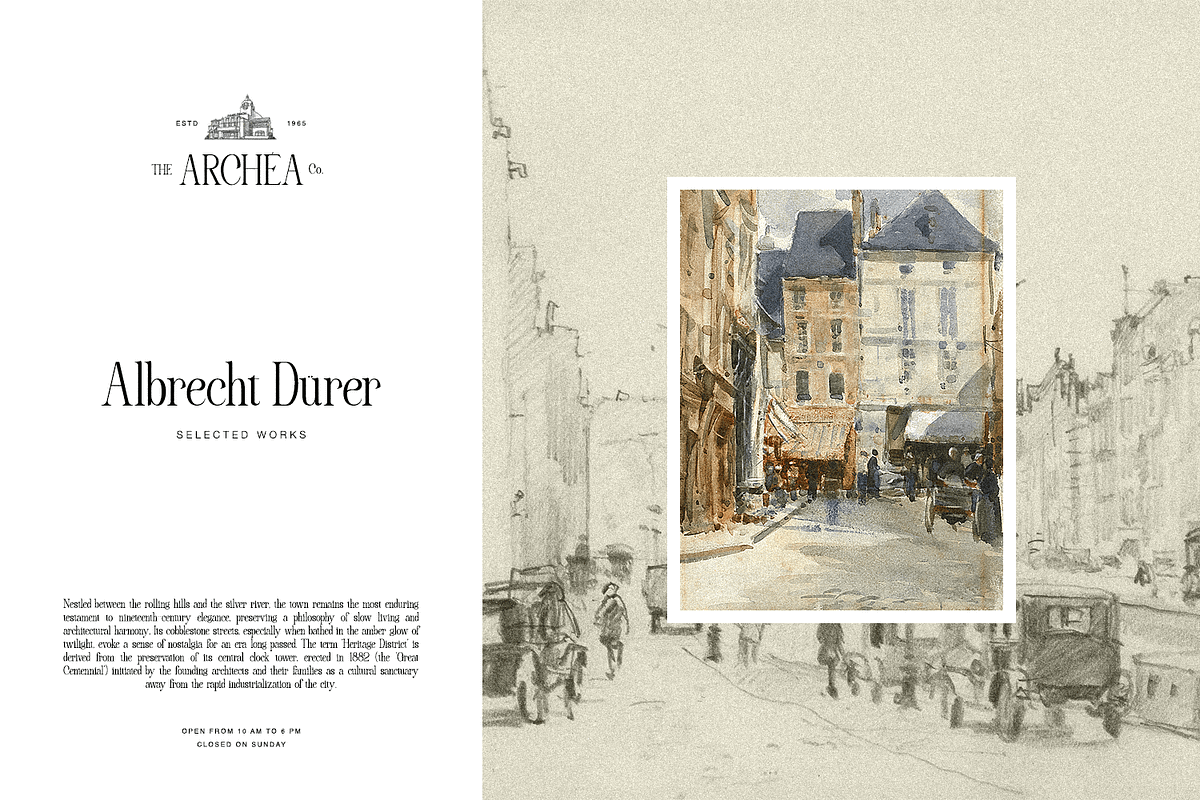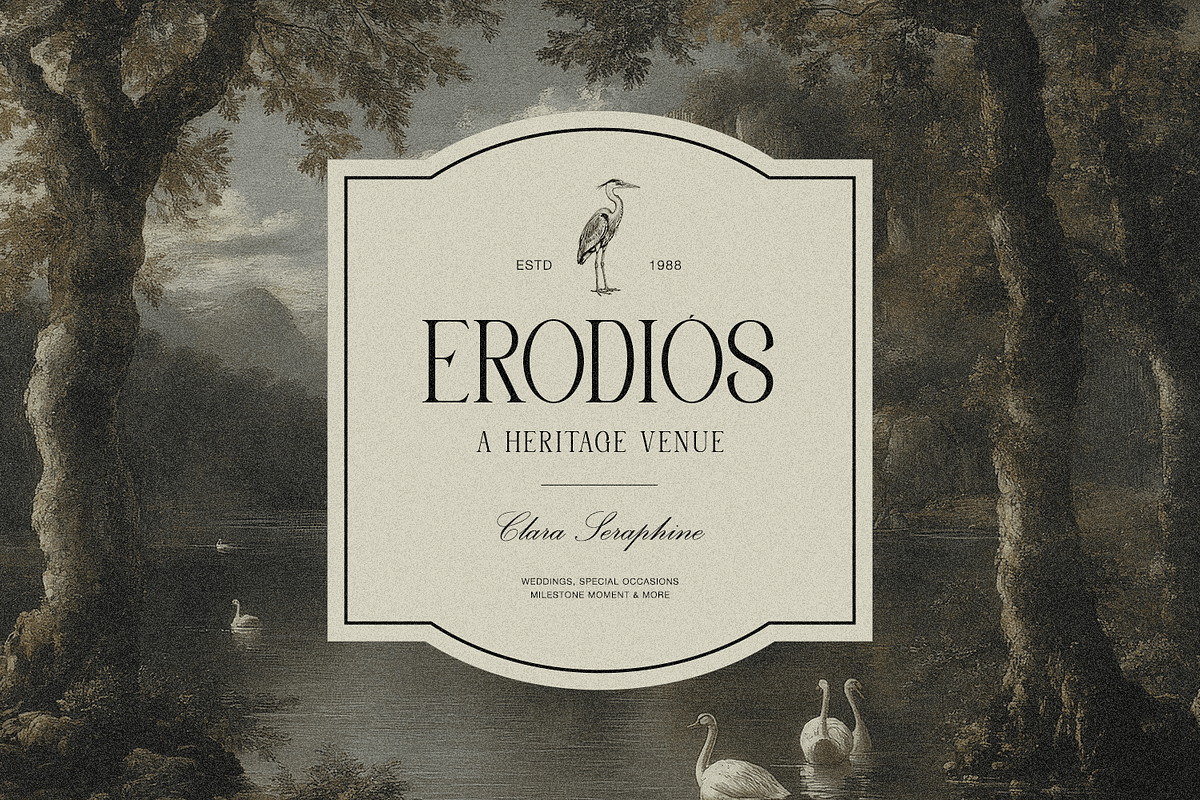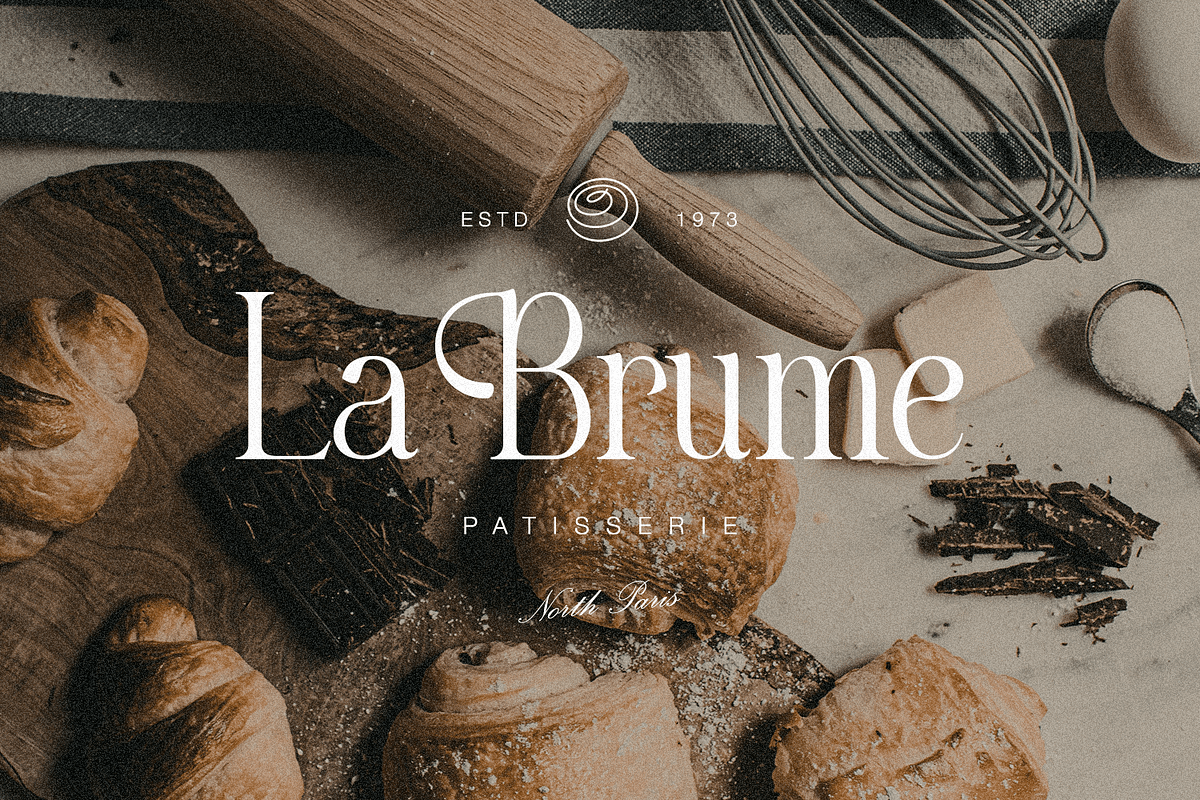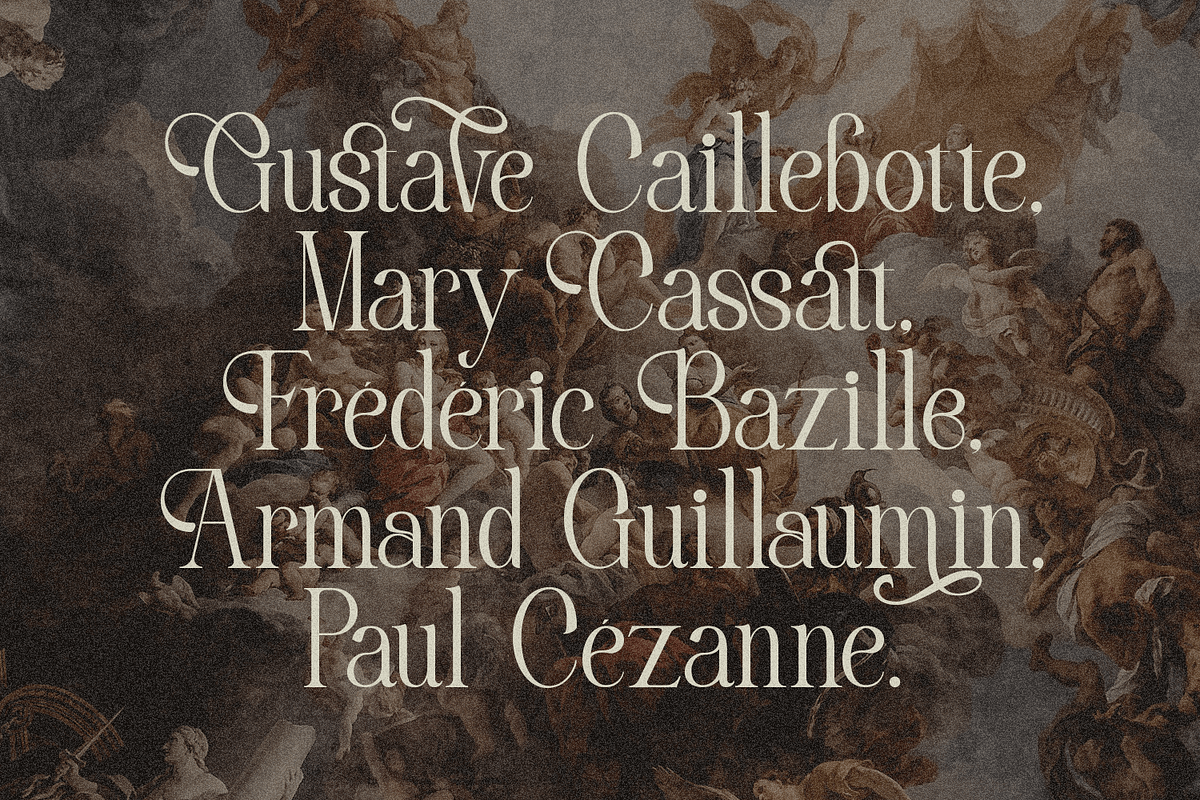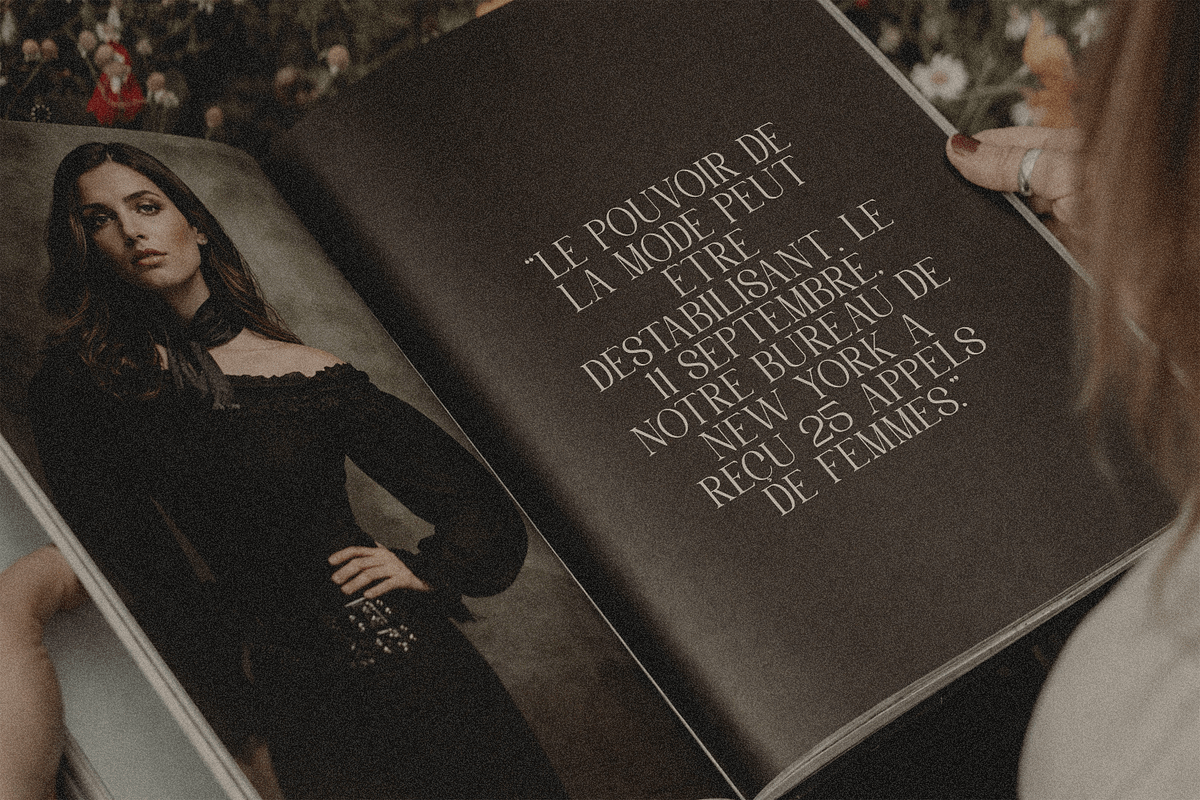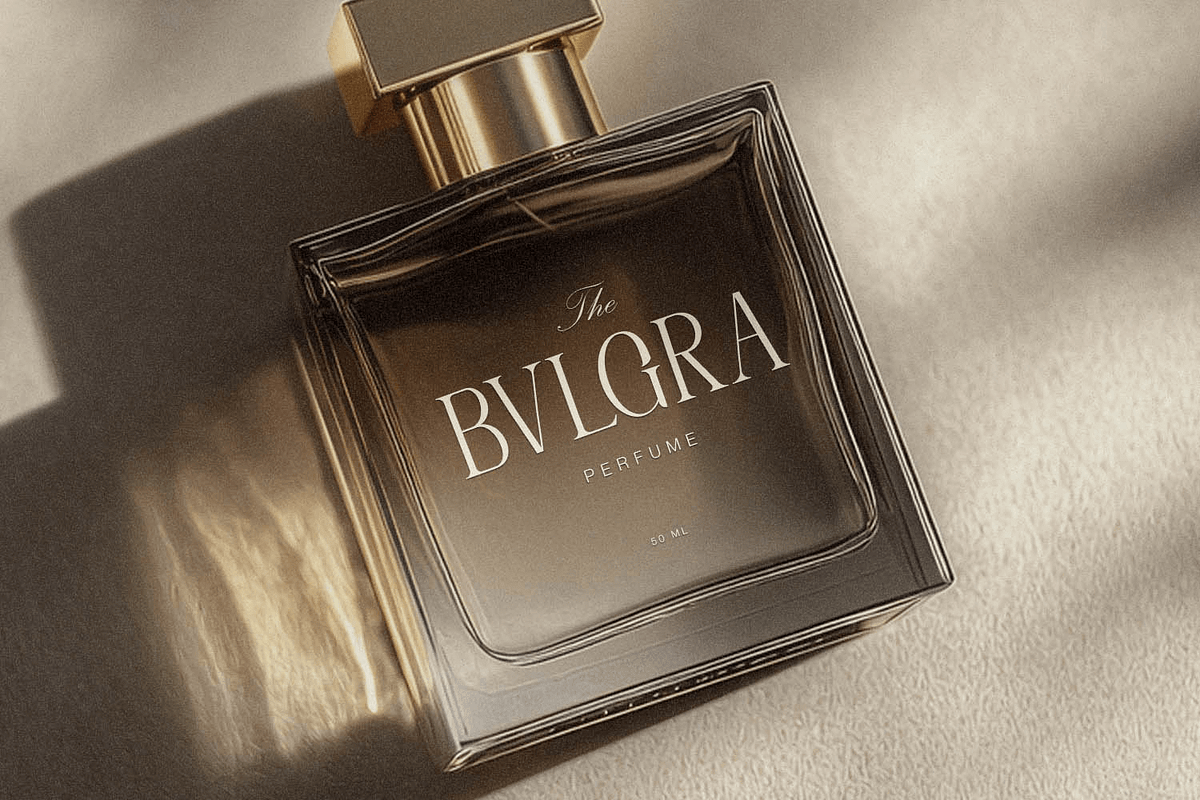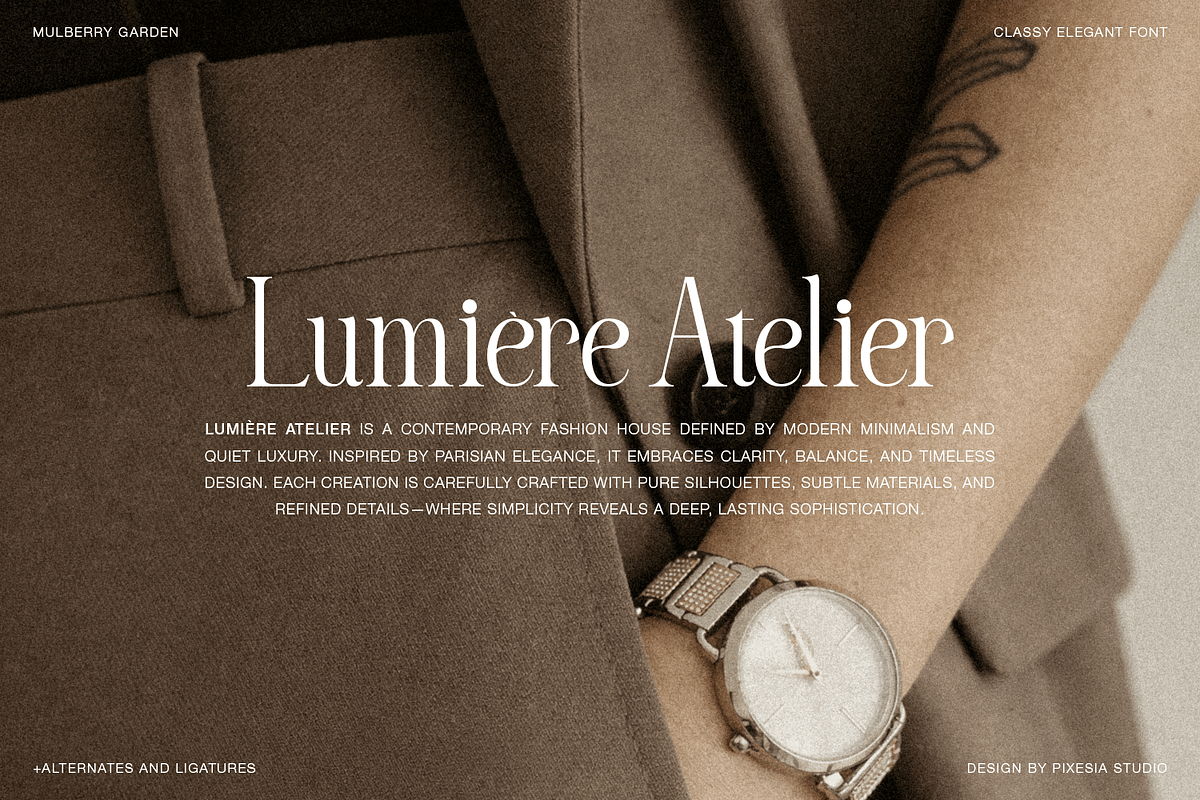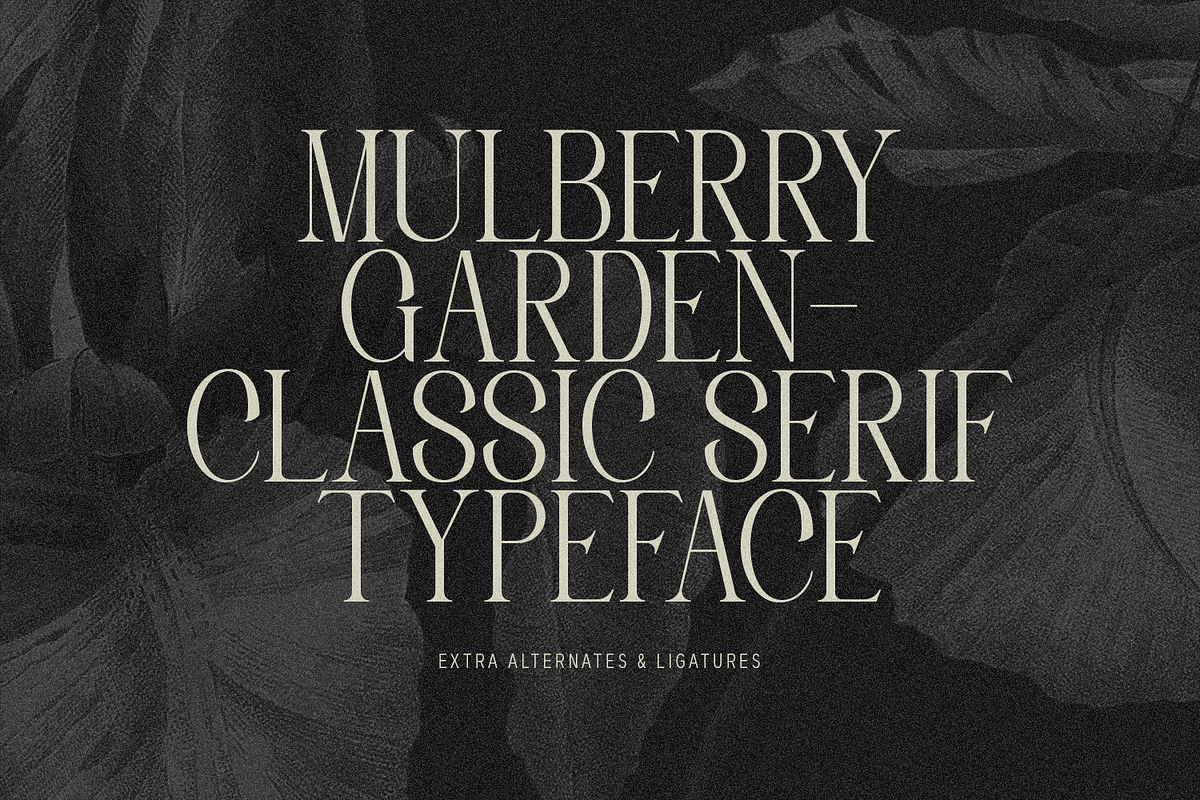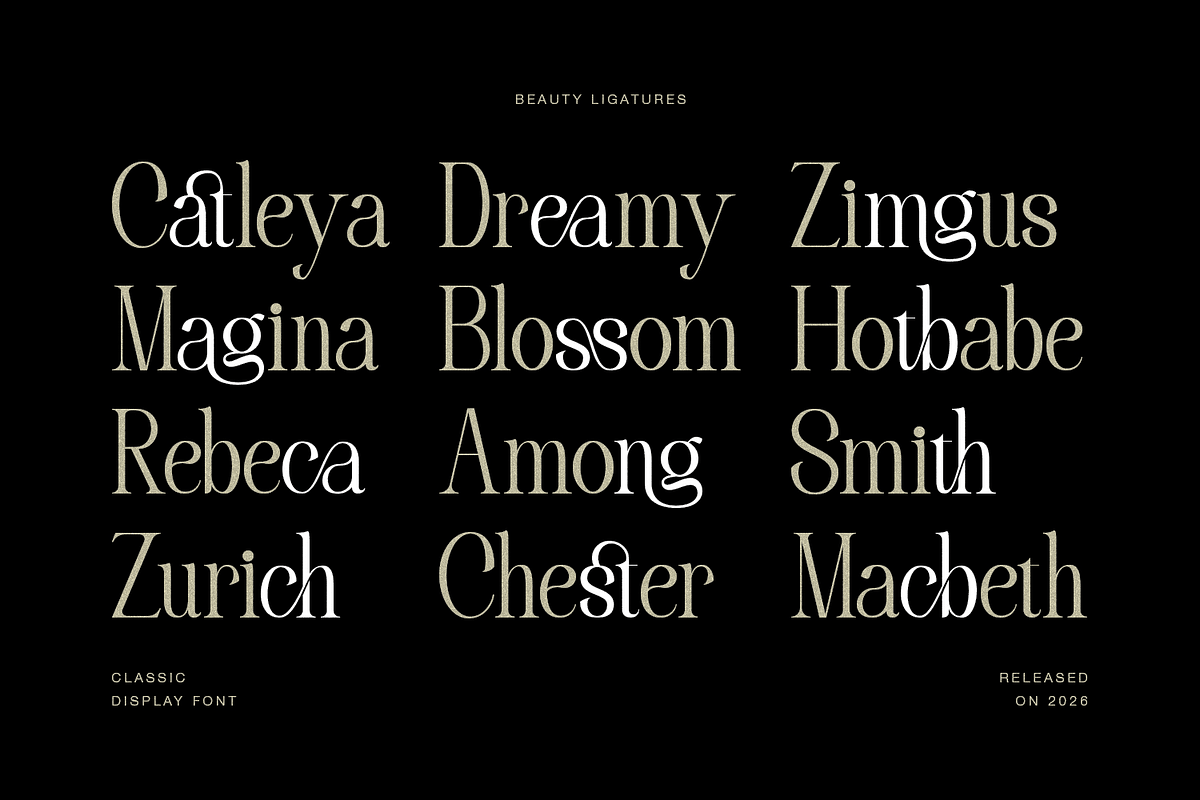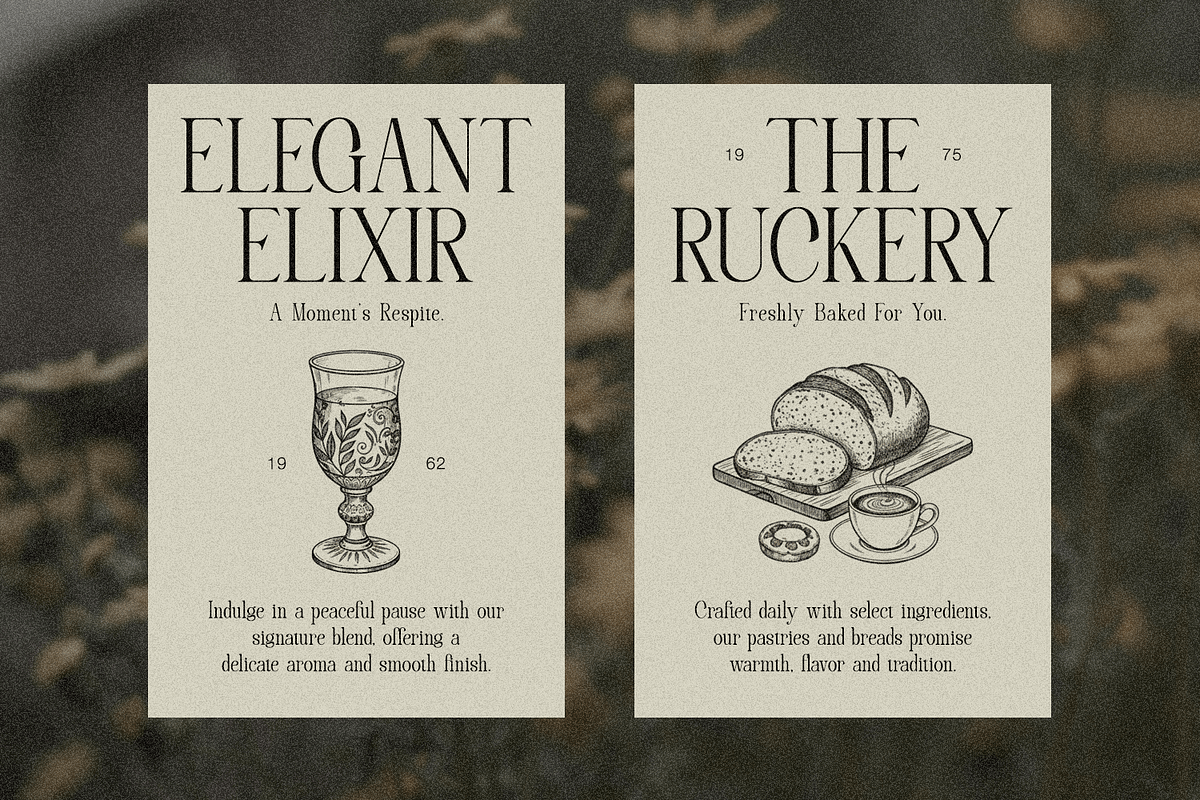
Mulberry Garden - Classic Serif Font
Introducing Mulberry Garden - Classic Serif Font
Mulberry Garden is a classic serif font that blends timeless elegance with refined modern details. Featuring high-contrast strokes, smooth curves, and beautifully crafted ligatures, this typeface delivers a sophisticated and romantic character ideal for premium visual identities.
Perfect for editorial layouts, fashion branding, wedding designs, book covers, logos, and luxury packaging, Mulberry Garden adds a graceful and artistic touch to any project. With alternates and ligatures included, this font allows you to create expressive, polished typography that feels both classic and contemporary.